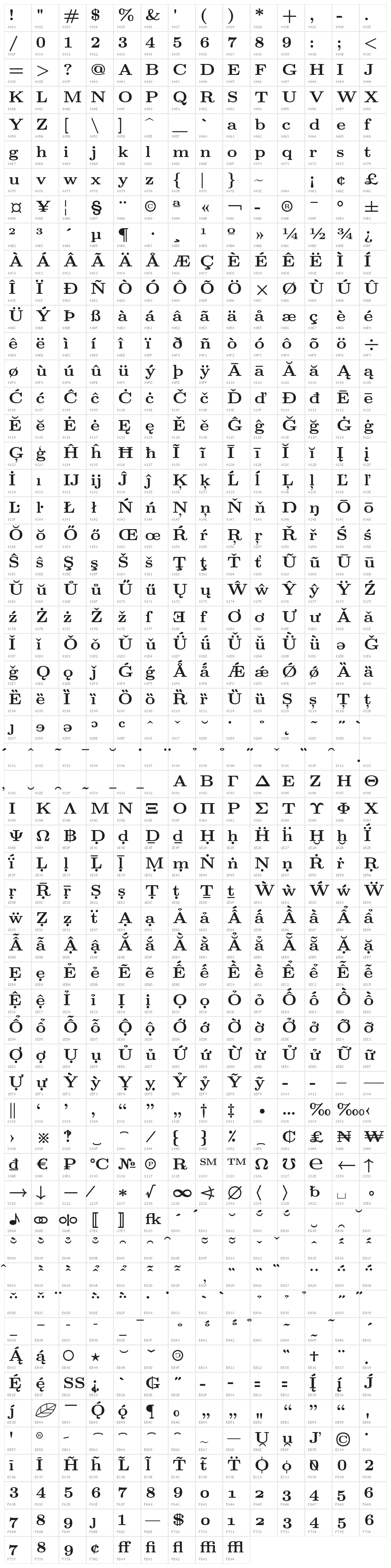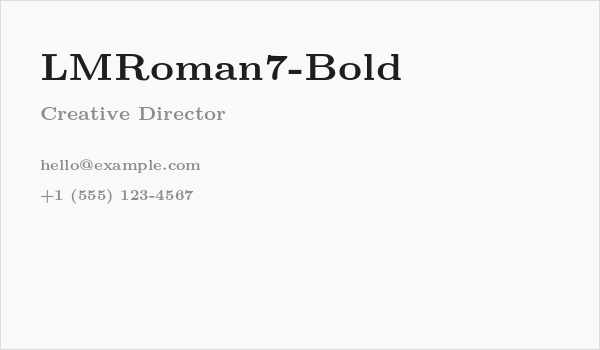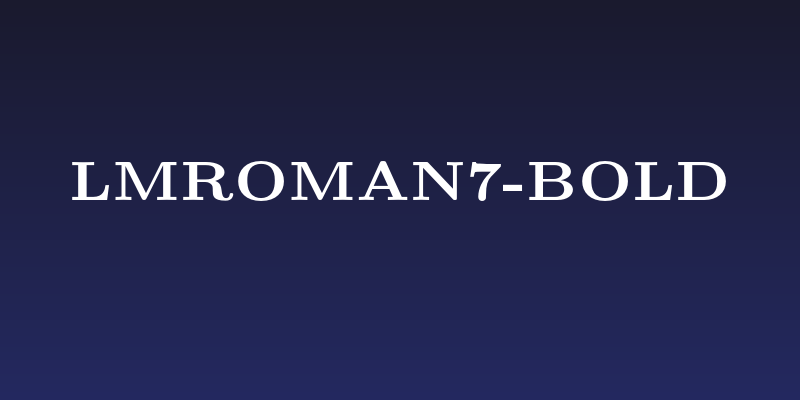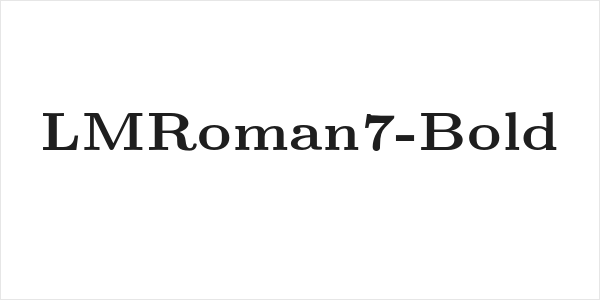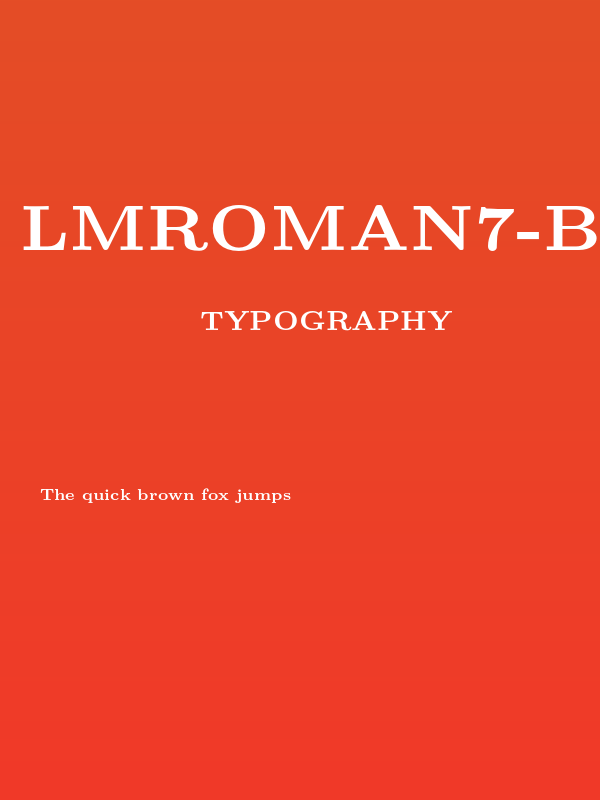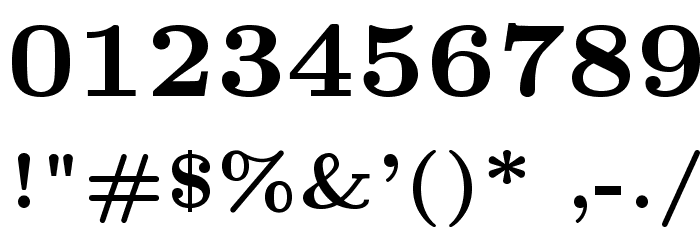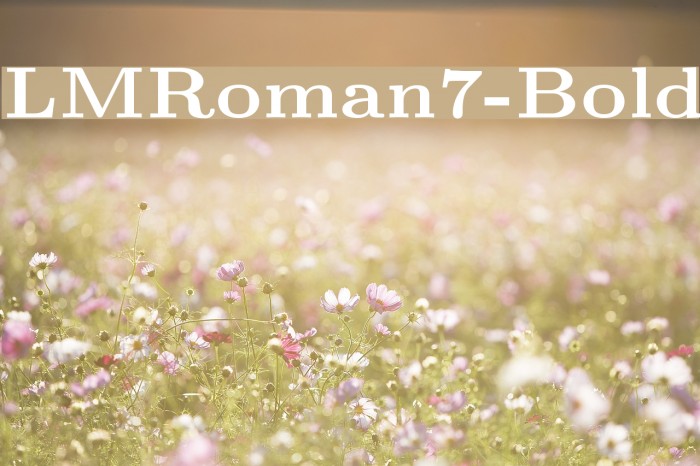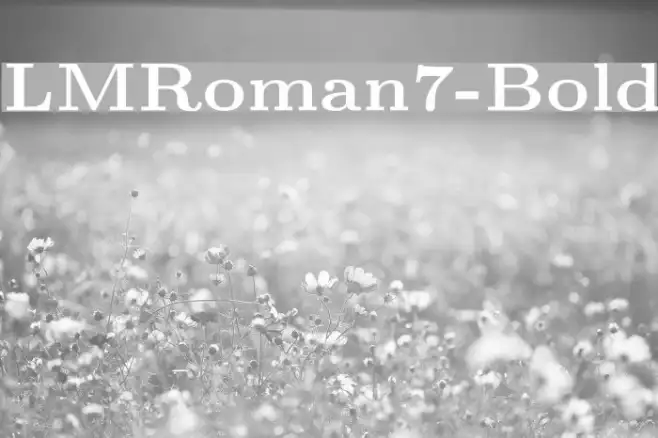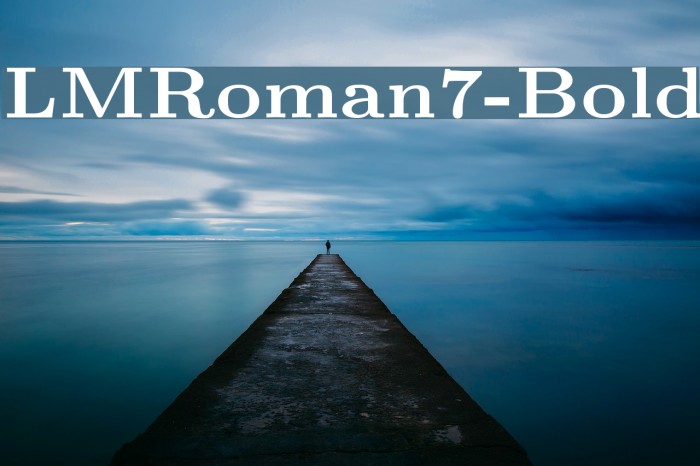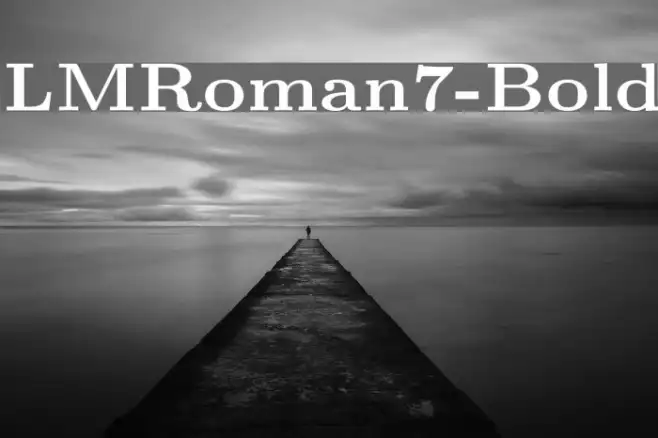
LMRoman7-Bold Font
LMRoman7-Bold Description
This font exhibits a classic serif style with strong, bold strokes that convey a sense of tradition and authority. The uppercase letters are well-proportioned, with distinct serifs that enhance readability and add a touch of elegance. The lowercase characters maintain a consistent weight, providing a harmonious balance with the uppercase set. Numerals are clear and robust, ensuring legibility in various contexts. Special characters are designed with precision, maintaining the overall aesthetic of the font. The combination of boldness and serif detailing makes it suitable for formal and professional applications.
| Proposed Projects | Ideal for use in formal documents, book titles, editorial design, and branding materials that require a touch of sophistication. |